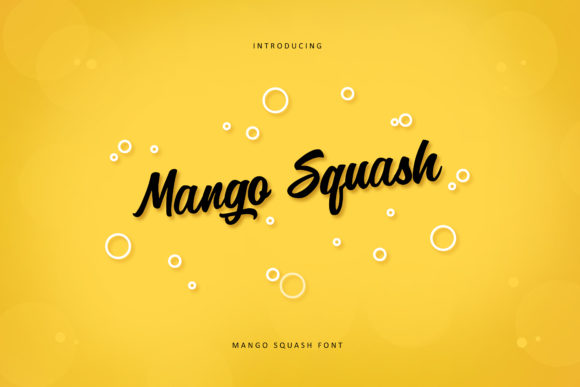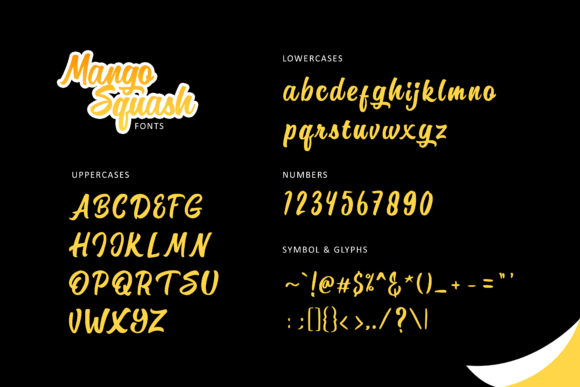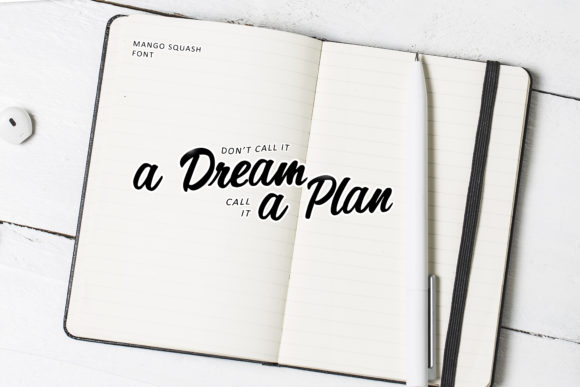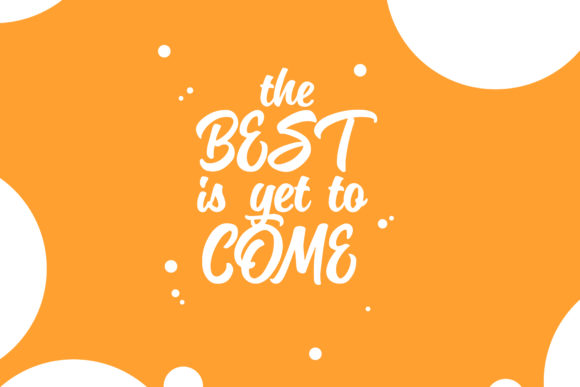
Mango Squash Font
About Mango Squash Font
The Mango Squash is a modern handwritten font. It has a thick, friendly and fresh look and is perfect for cool designs full of spirit.